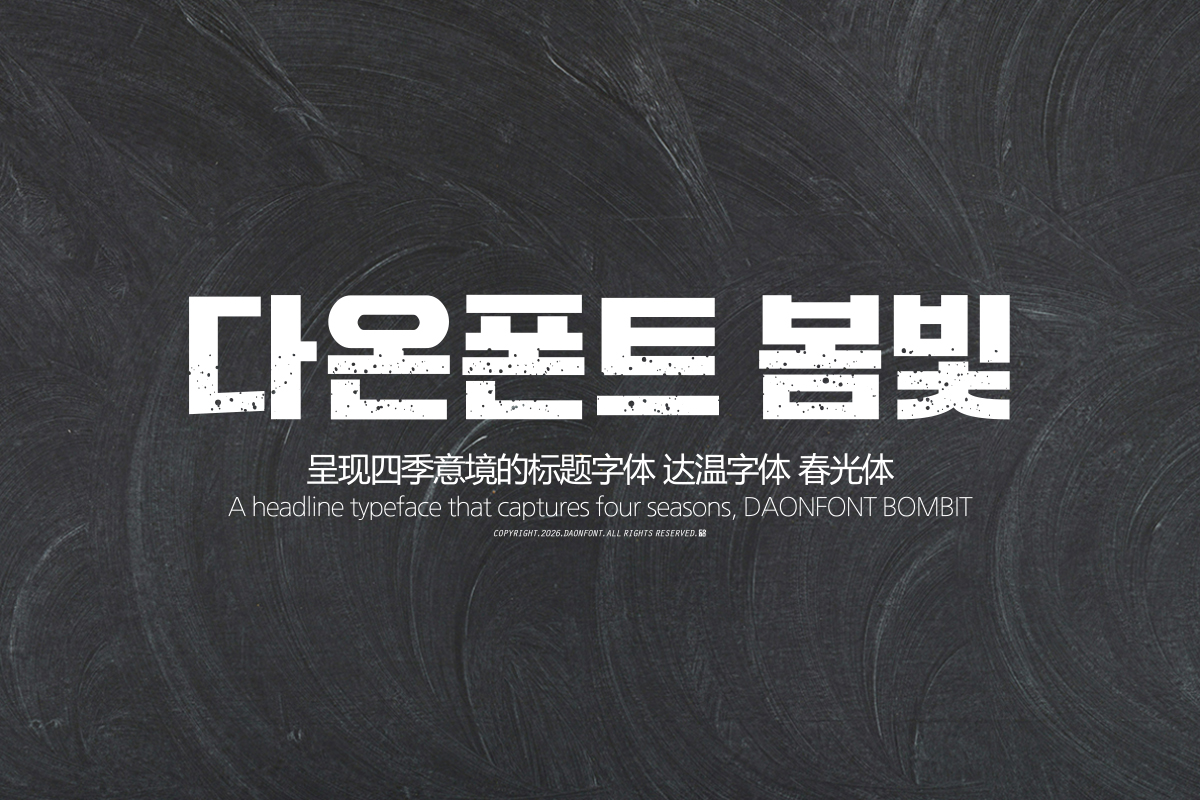
DAON SAGYE BOM
DaonFont 'SAGYE BOM' is a Hangul typeface for display that captures the warm energy of spring and the sentiment of new beginnings, part of the Four Seasons series. While based on a bold and solid square structure, the addition of an ink texture that naturally spreads throughout the characters conveys an analog depth distinct from standard Gothic typefaces.